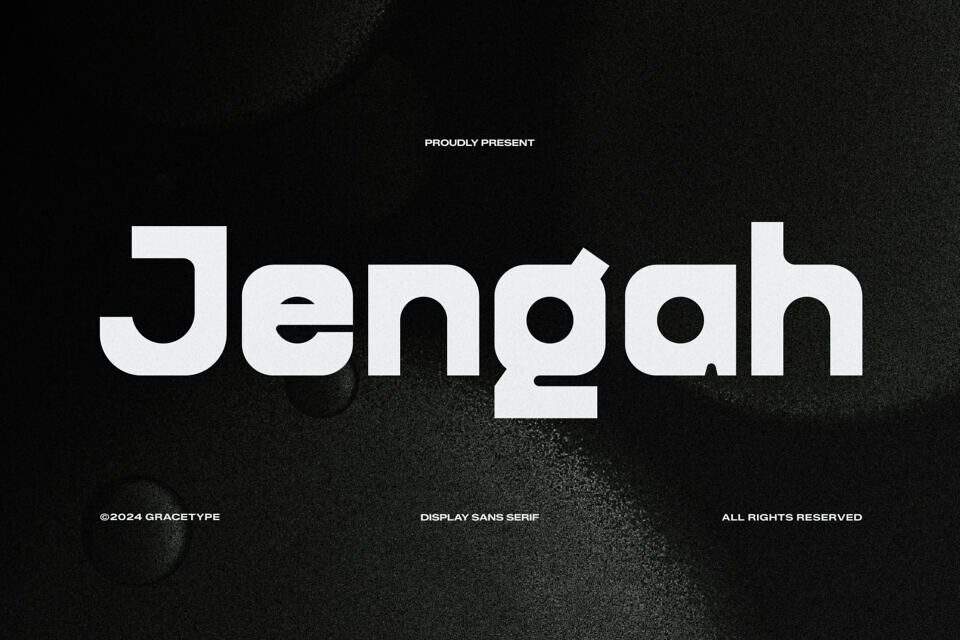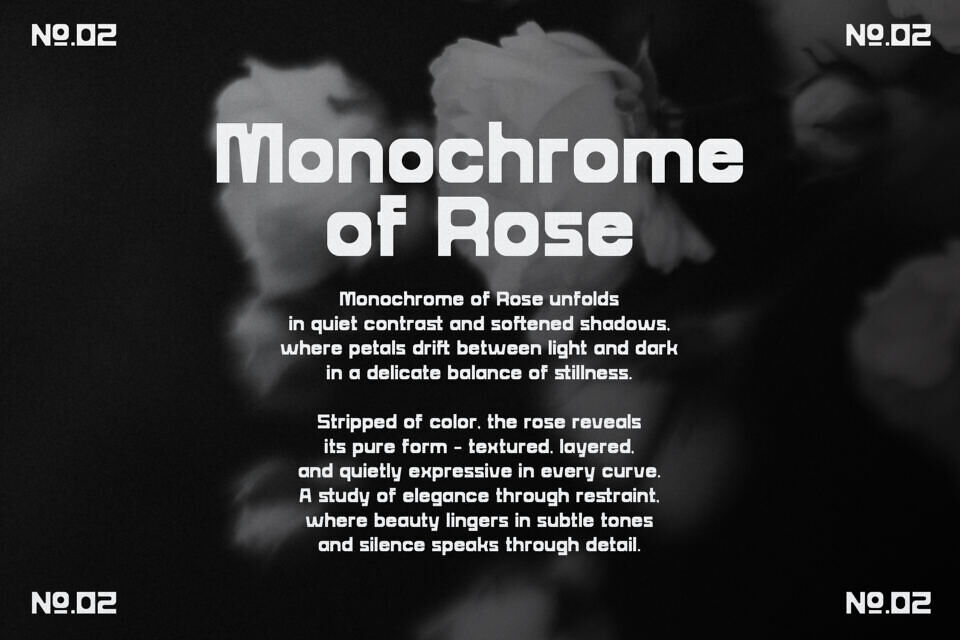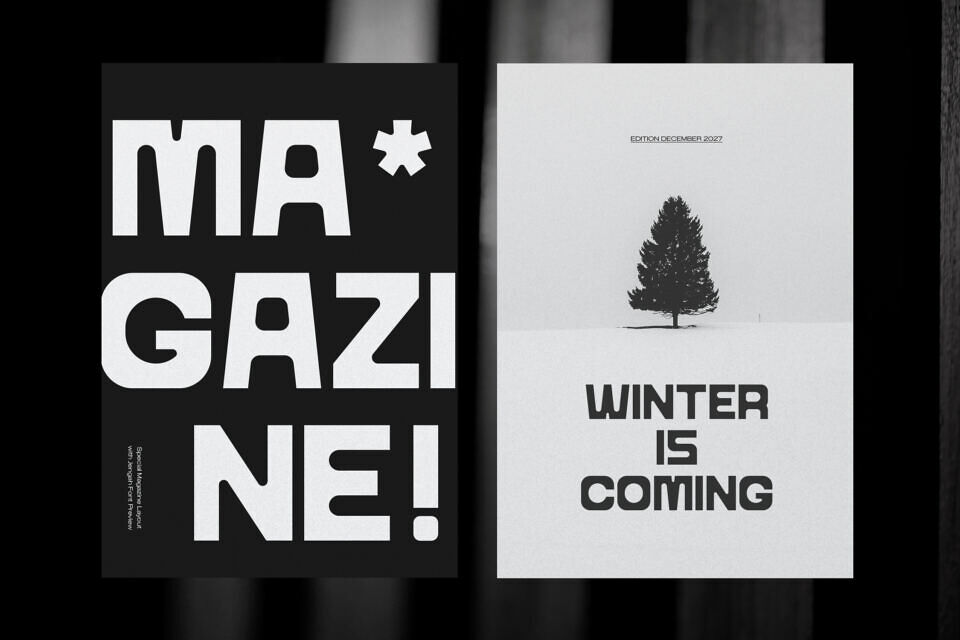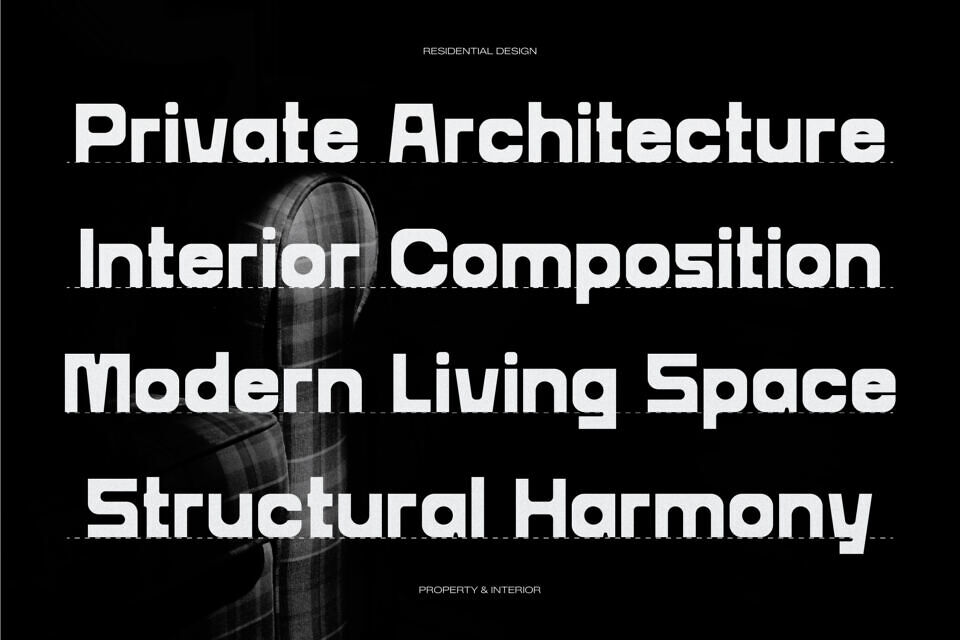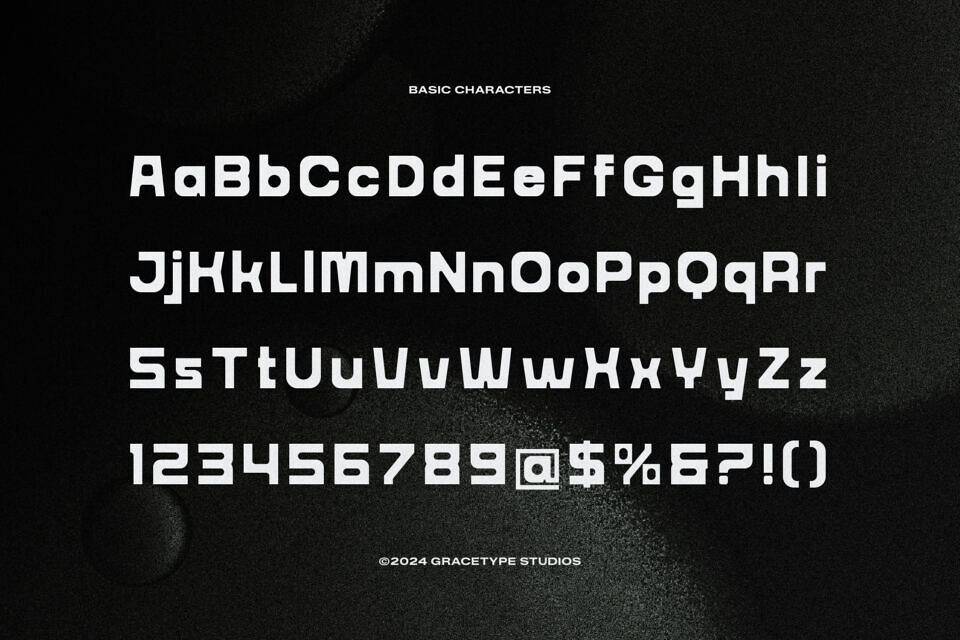
Jengah Font
Jengah is a powerhouse display sans serif designed for high-impact visual communication. This font features ultra-thick, blocky letterforms with subtle, unique ink traps and chiseled cutouts that add a contemporary tech-edge.
Its heavy visual weight and stable base make it perfect for brutalist posters, futuristic branding, bold headlines, and streetwear graphics. Jengah is built for designers who want their message to feel unshakeable.